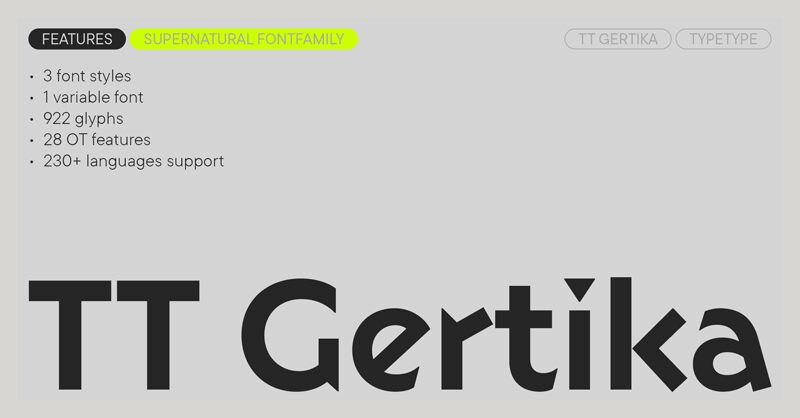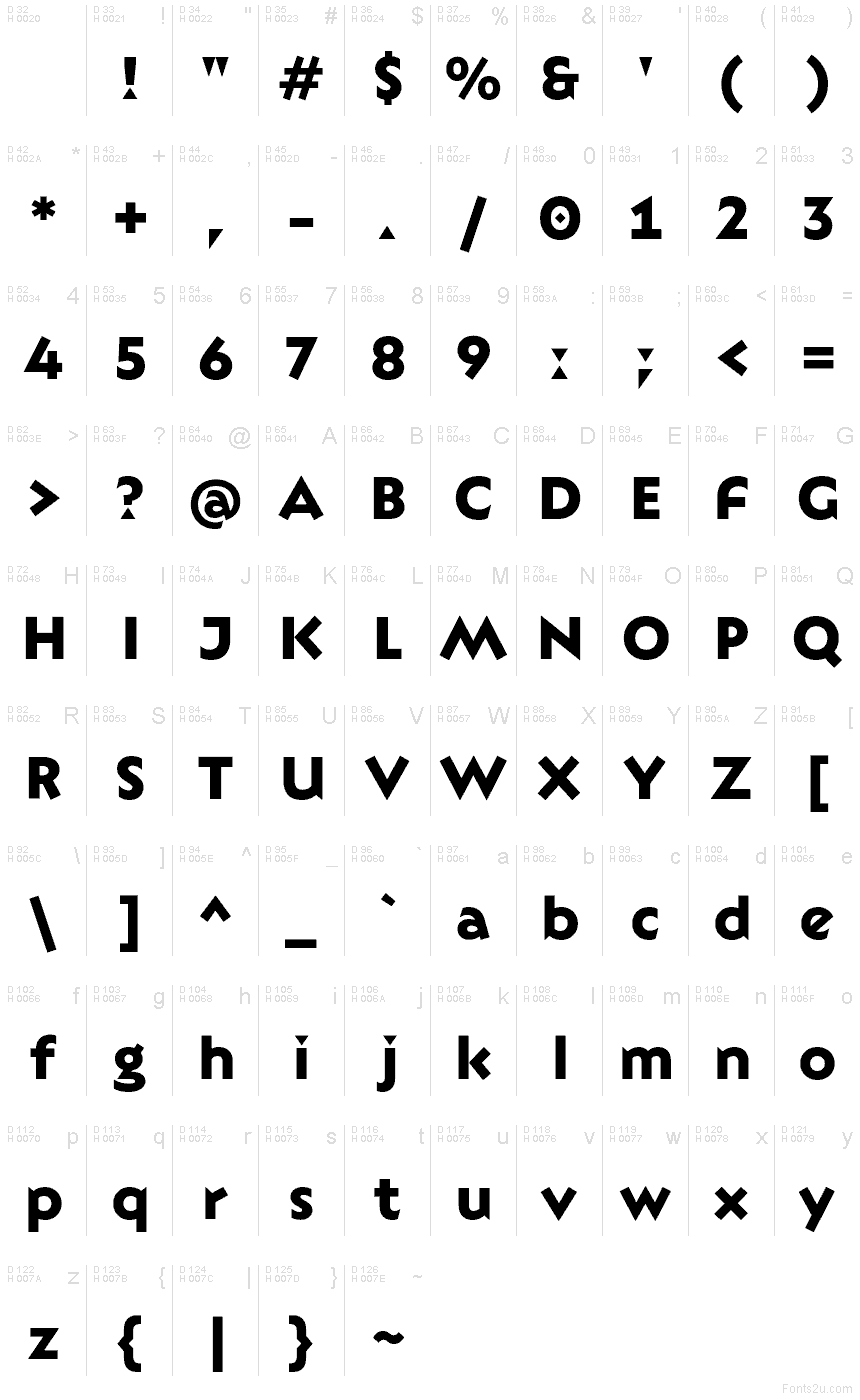
TT Gertika Trial Black
TT Gertika Black font by TypeType Foundry is a free sans serif typeface that hits with a punchy, ink-heavy presence. Wide, blocky shapes, tight spacing, and those distinctive angled cuts give it a bold, almost sculpted look—like letters carved from solid black vinyl. It’s part of the TT Gertika family, but this Black weight pushes the personality to the front, delivering loud, confident typography that still feels clean and contemporary.
Using TT Gertika Black, you get a headline magnet for branding, posters, social media graphics, packaging, gaming titles, and bold website headers. This free font thrives at large sizes where its chunky geometry and sharp wedges can really breathe. Pair it with a light, neutral grotesque for body copy to let TT Gertika Black carry the visual weight and set the tone.